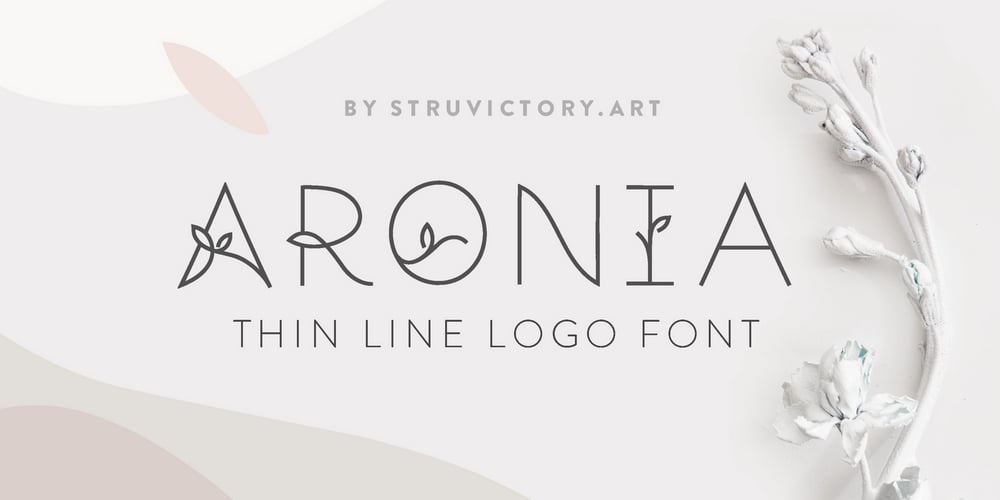
Aronia Font Family was designed by Viktoryia Strukouskaya, Viktor Strukouski and published by Struvictory.art. Aronia contains 2 styles and family package options. Aronia is a thin line uppercase font with floral motives. The typeface includes a Decorative and a Symbol version. To get an elegant and unique design, combine letters with elements. The font is easy to use in various design programs or without any program. Aronia is suitable for feminine business branding, eco-friendly and minimalistic art, social media design. The font works great for craft products branding and packaging (organic cosmetics and food, jewelry, handmade soap ect.) Also use individual letters and symbols to create logos and monograms. Aronia combines well with modern graphics: abstract shapes and line art.